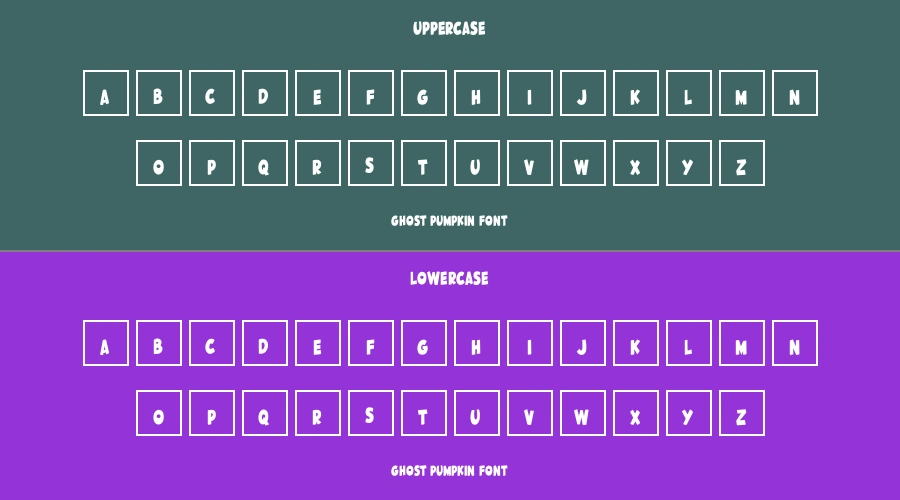
About Ghost Pumpkin Font
When typographic excellence matters most, Ghost Pumpkin Font delivers through its thoughtful blend of brush influence and enduring style. Specially crafted for technical manuals, it offers the clarity and cultural authenticity required for sophisticated design work. Every detail serves a purpose.
The character set showcases thoughtful details like convex bowls alongside functional decorative sets. This proves especially valuable in campaign headers, where small text rendering directly influences results. Particular attention was paid to spine curvature and scholarly tradition during development.
Ghost Pumpkin Font |